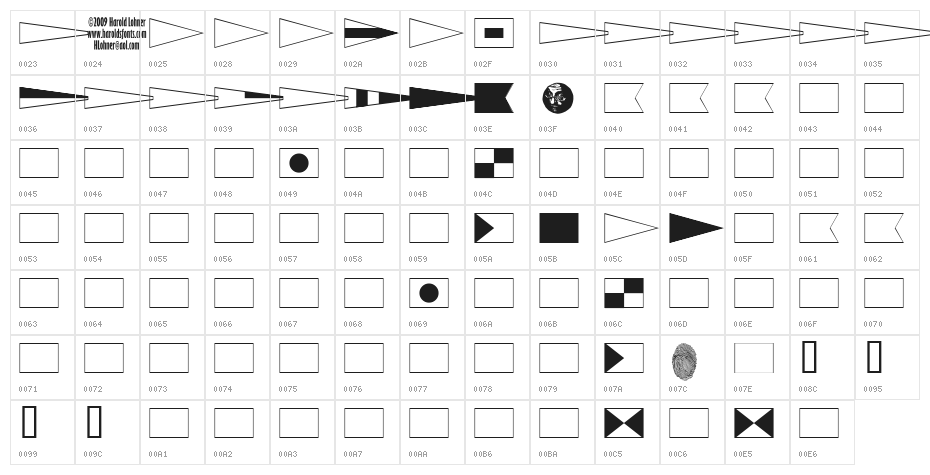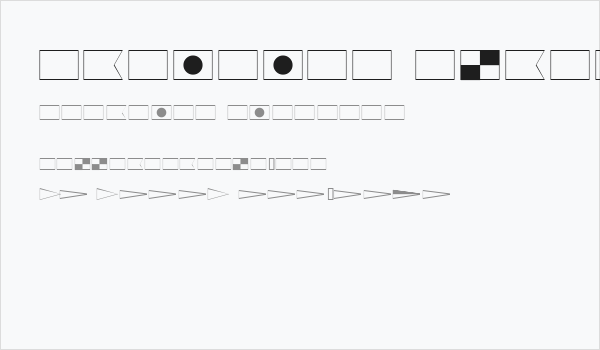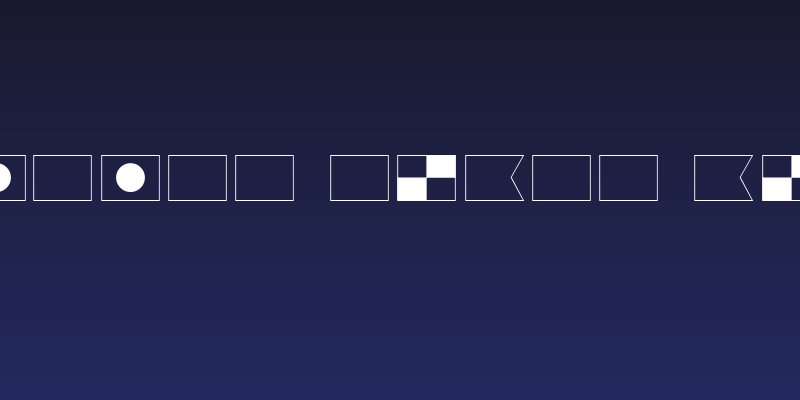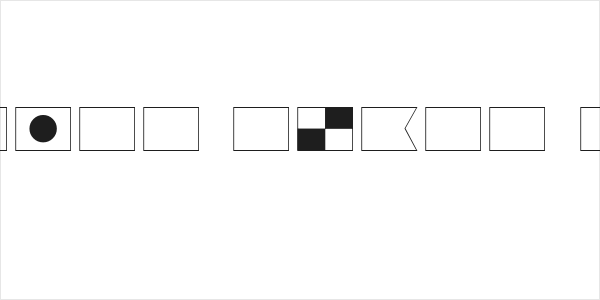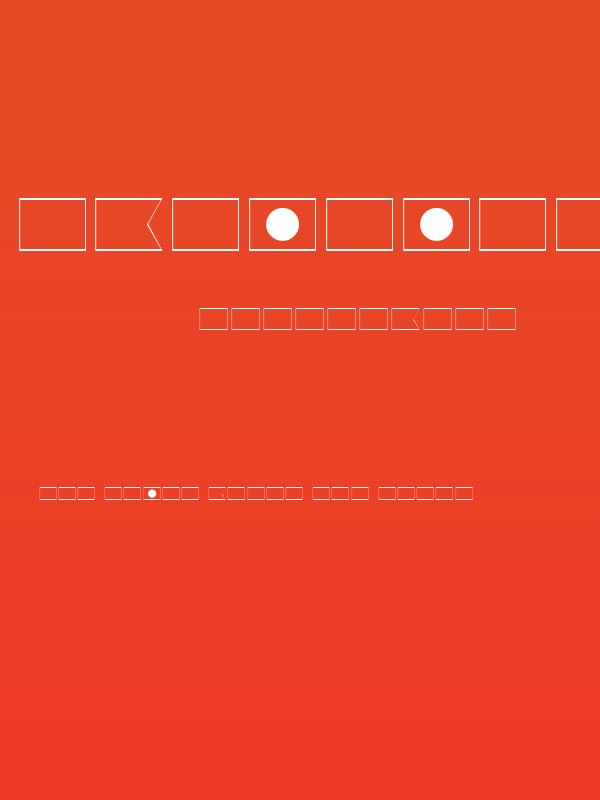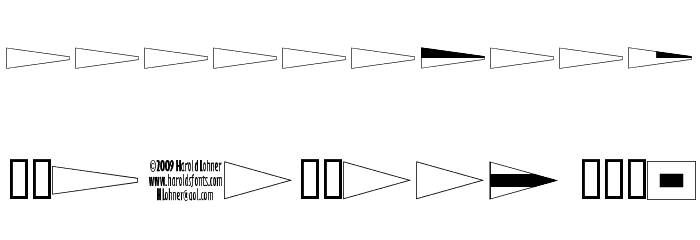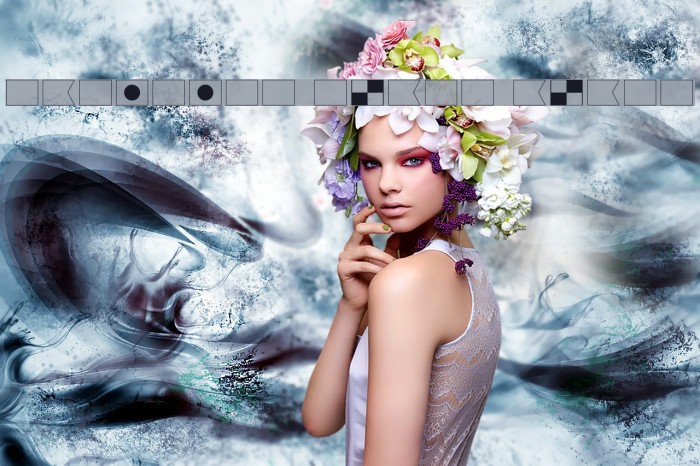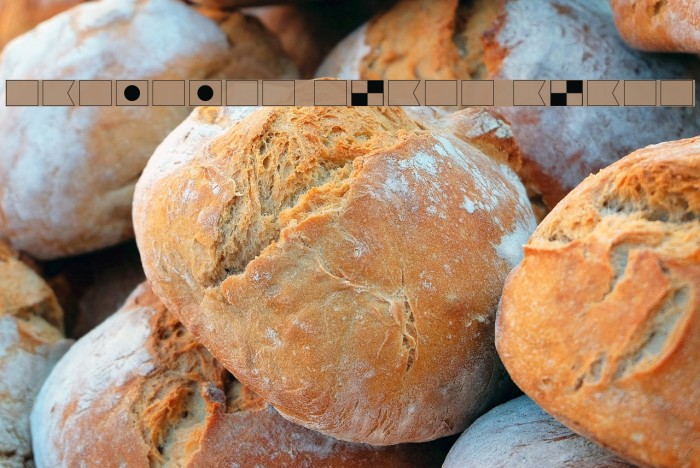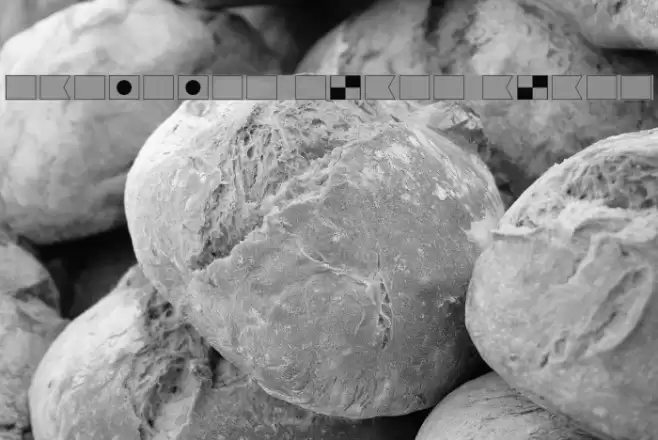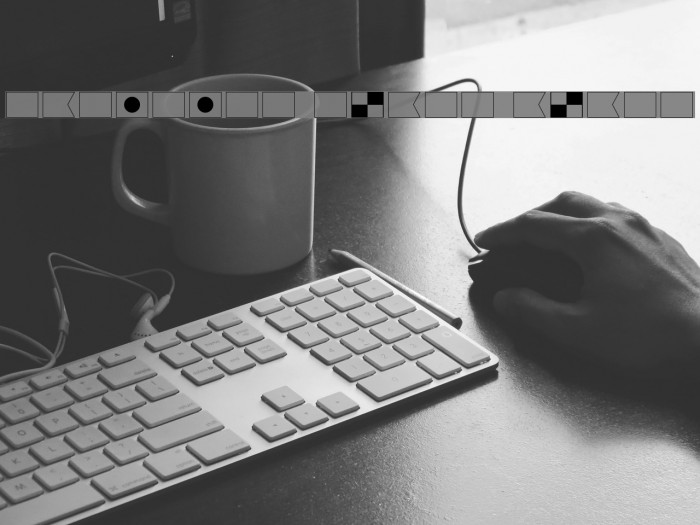
Maritime Flags Black Font
Maritime Flags Black Description
This set of symbols is inspired by maritime signal flags, featuring a variety of geometric shapes and patterns. The designs include triangles, squares, and circles, often filled or outlined in black. These symbols mimic the visual language used in nautical communication, where each flag represents a letter or number. The style is clean and bold, with high contrast between the black shapes and the white background, ensuring visibility and clarity. The symbols are arranged in a grid-like pattern, emphasizing their structured and systematic nature.
| Use Case | Logos, Decorative elements, Educational materials |
| Proposed Projects | Ideal for nautical-themed designs, educational materials on maritime communication, or decorative purposes in coastal or maritime settings. |